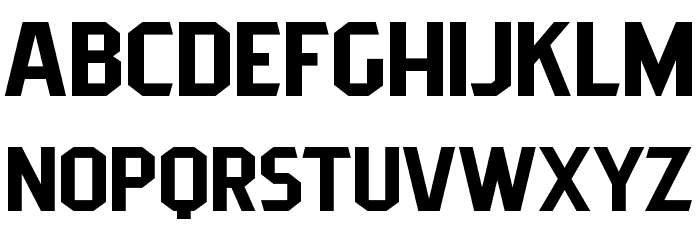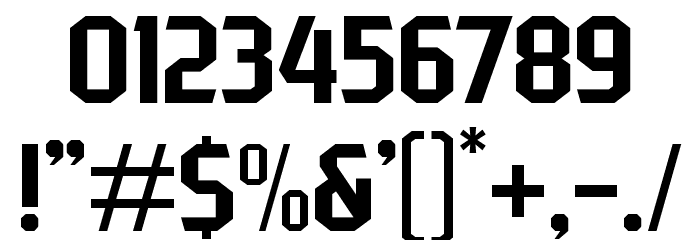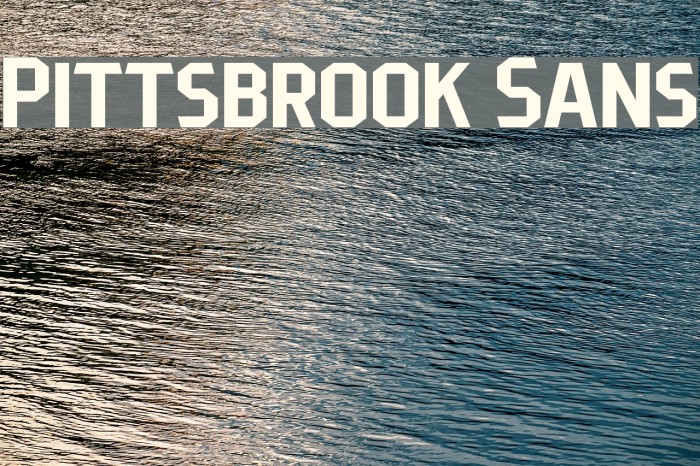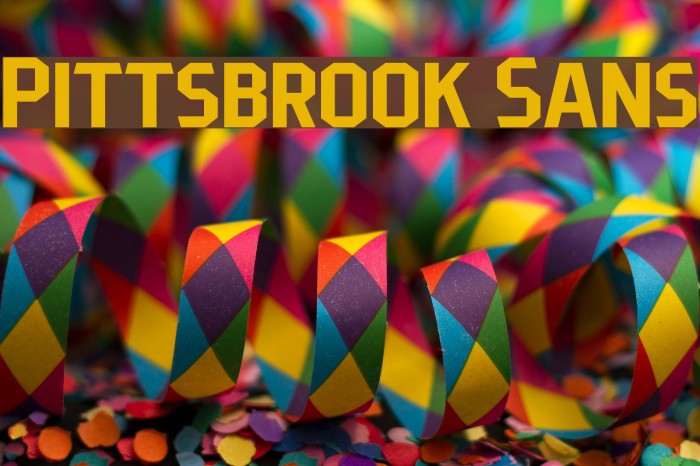
Pittsbrook Sans Font
This font features a bold, geometric design with strong, angular lines and a modern aesthetic. The uppercase letters are uniform in height, creating a cohesive and structured appearance. The numerals are equally bold, maintaining the geometric style with consistent stroke widths. Special characters are designed to match the overall aesthetic, providing a seamless integration with the alphabetic characters. The font's design is clean and impactful, making it suitable for attention-grabbing headlines and logos.
A bold, geometric font with strong, angular lines and a modern aesthetic.
- Proposed Projects: Ideal for branding, headlines, posters, and any design requiring a strong visual impact.